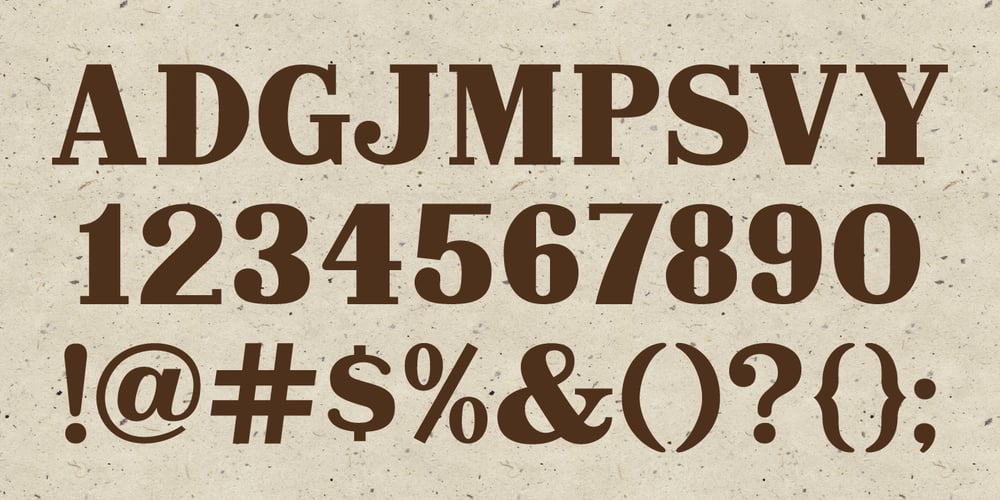
MPI Antique
MPI Antique font
MPI Antique Font Family was designed by published by mpressInteractive. MPI Antique contains 1 styles and family package options. Antique is a bold, classic font with high stroke contrast and no bracketing on the serifs. This letter style was hugely popular during the early 19th century and was the basis for a myriad of other designs. This version is based on wood type of unknown origin.